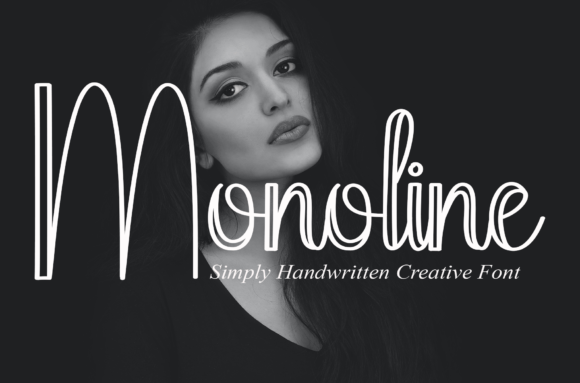
Welcome to our Monoline Font collection, where you can find the perfect script font for your vintage-themed project! Created by the talented William Jhordy, Monoline Font is a sweet and friendly handwritten font that exudes a timeless charm.
This font family is ideal for those who are looking for a unique and fun touch to add to their design projects. Its fresh and neat appearance is perfect for writing wedding invitations, cards, or any other creative projects that require a personalized and whimsical look.
Monoline Font is the perfect fit for those who want to add a vintage feel to their work. It offers a modern twist on traditional calligraphy that is both elegant and playful. This font is sure to elevate your project and make it stand out from the rest.
With Monoline Font, you can express your creativity and capture the attention of your audience. Its versatility allows it to work well in a variety of applications, making it a great addition to any designer's toolkit.
Overall, Monoline Font is a great choice for anyone looking for a fun and unique script font that offers a vintage feel. Its friendly and approachable nature will captivate your audience and leave a lasting impression. Download Monoline Font today and let your creativity soar!